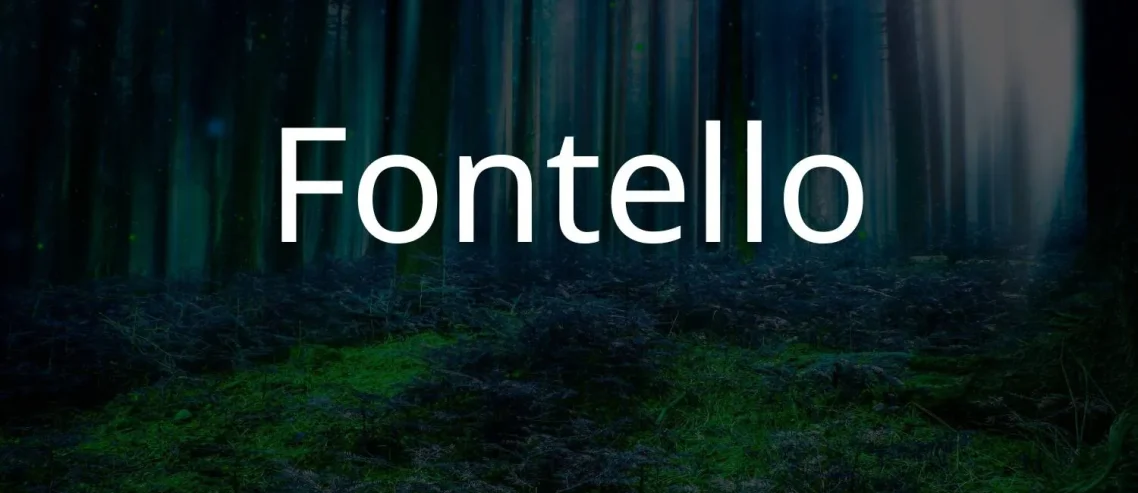
The Fontello font, crafted by a team of designers, is highly versatile and iconic. It is renowned for its capability to produce personalized icon fonts, making it a preferred option for web designers and developers.
The font allows users to pick and choose from a vast library of symbols, creating a unique set of icons tailored to specific projects. Its minimalist design, combined with the expertise of its designers, ensures that it remains a top choice for those seeking a customizable and visually appealing icon font solution.